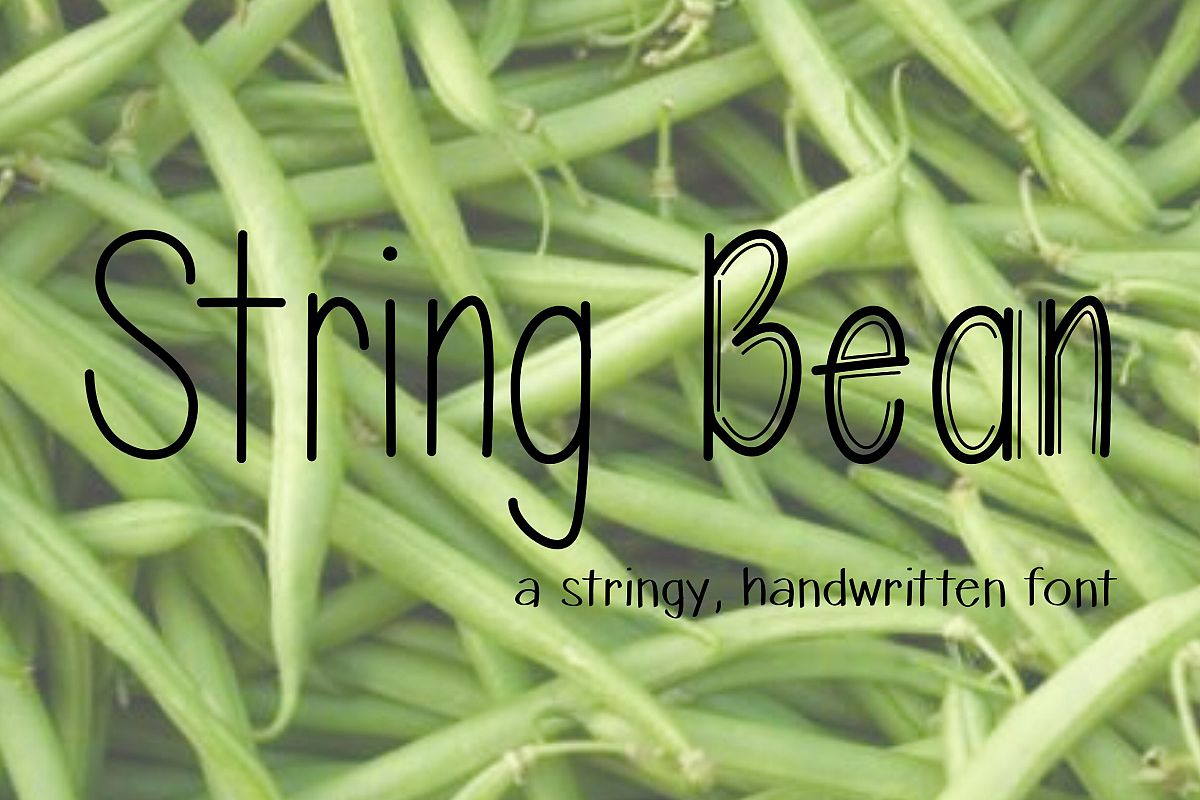
String Bean
StringBeanOutlined
StringBeanSolid
StringBeanSolidBold
StringBeanOutlinedBold
A fun addition to your font collection!
Skinny and Bold versions included!